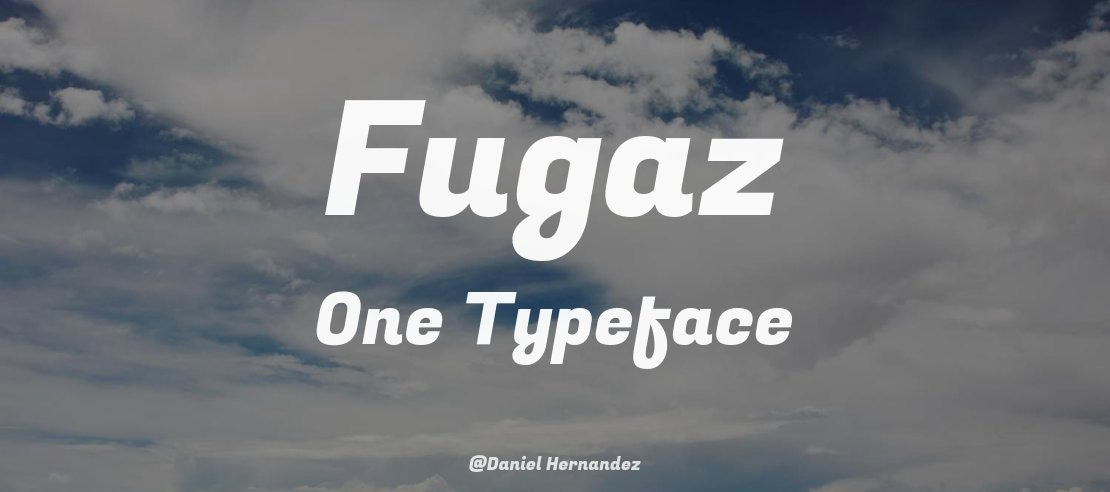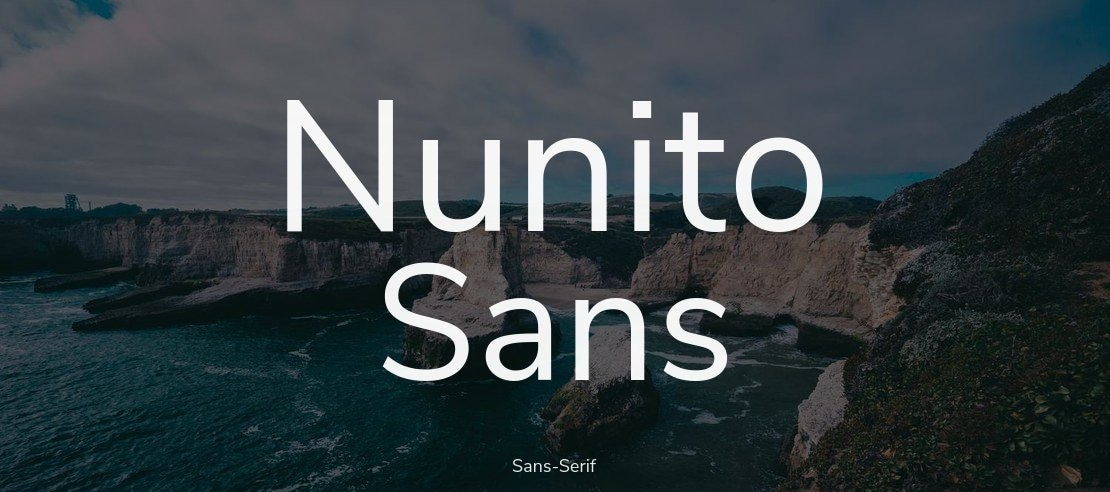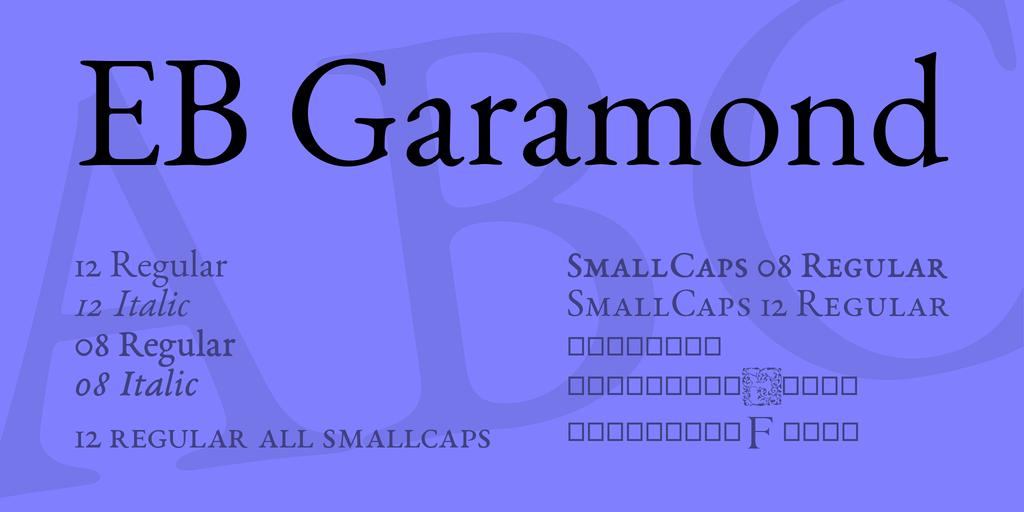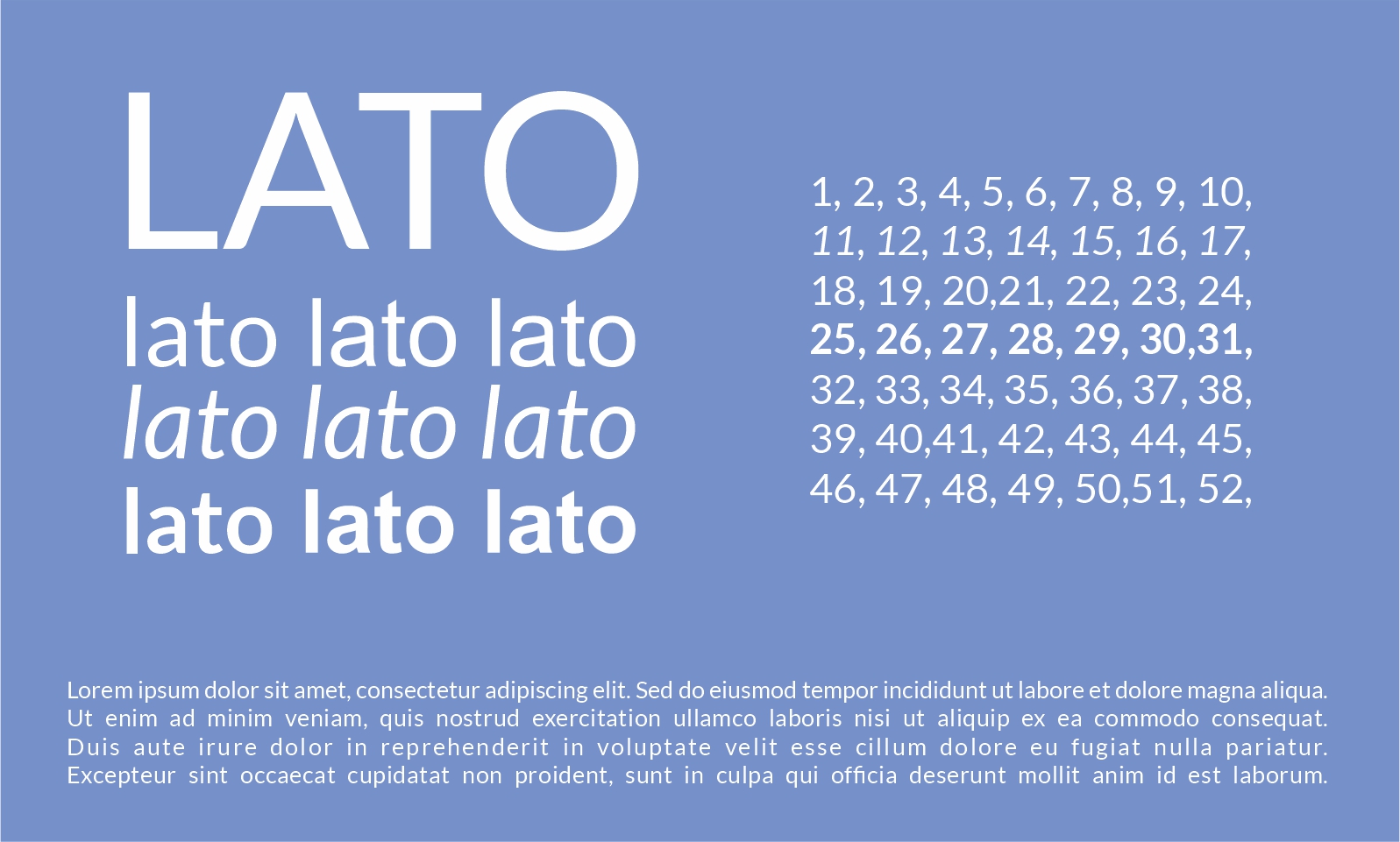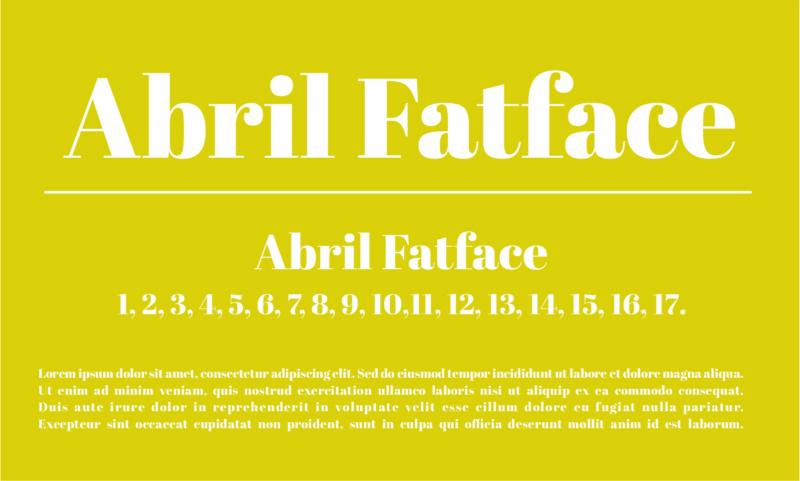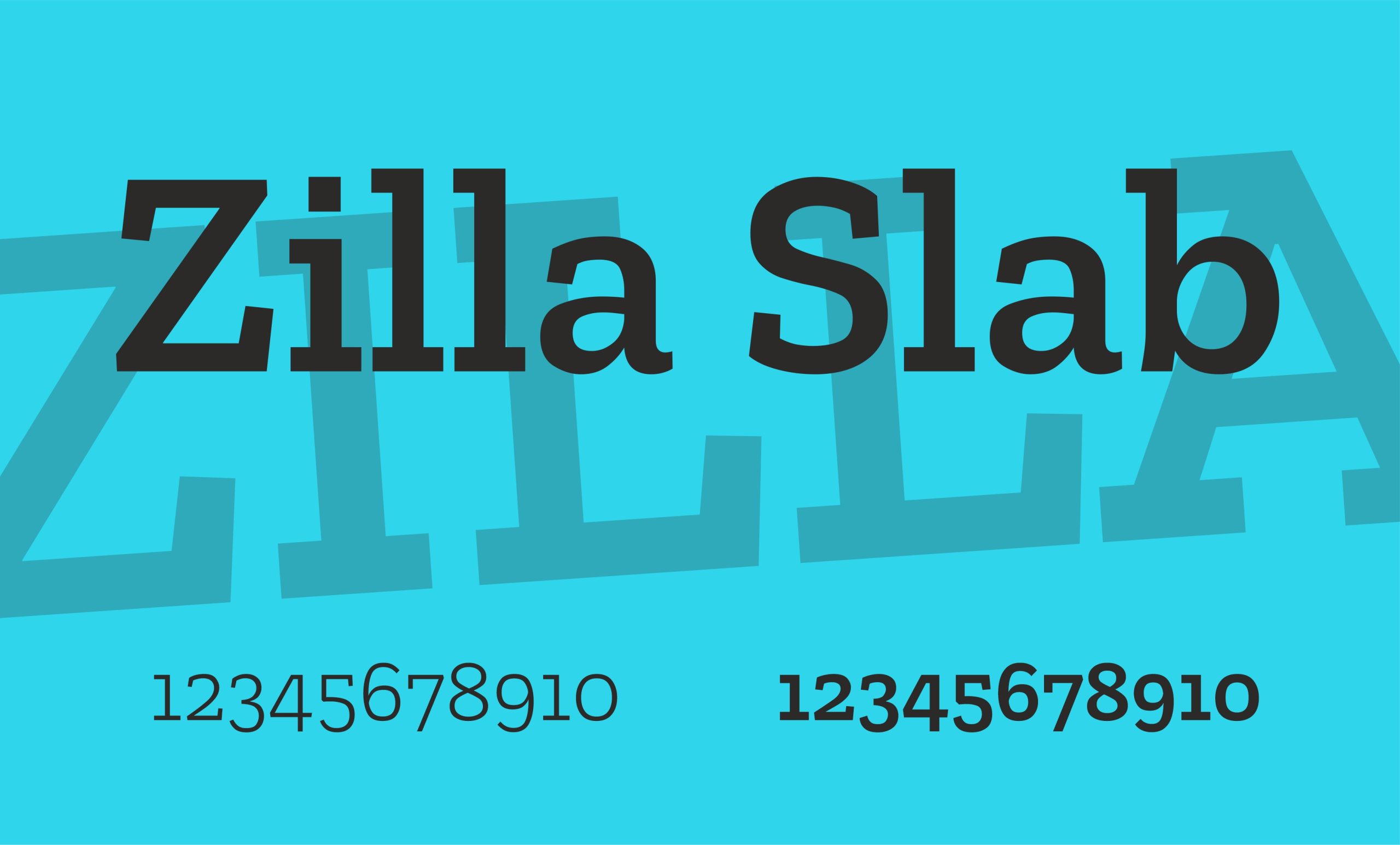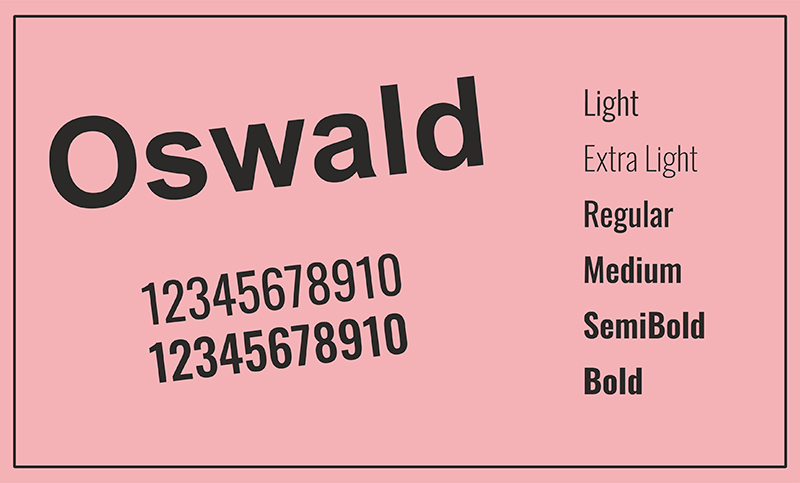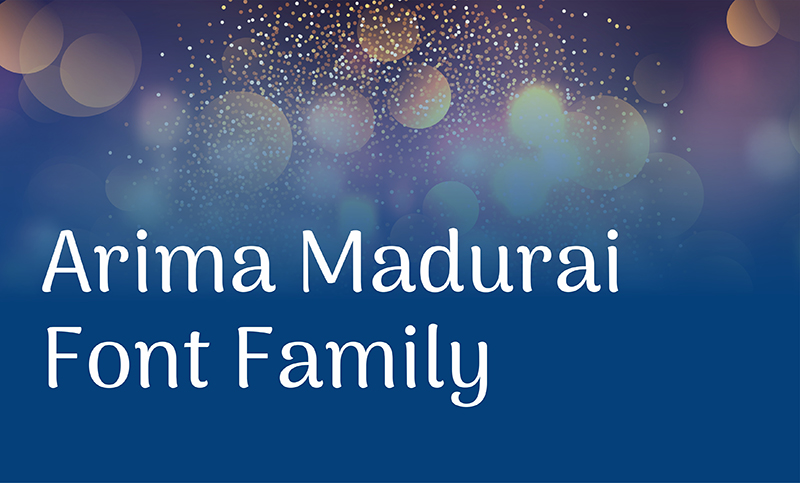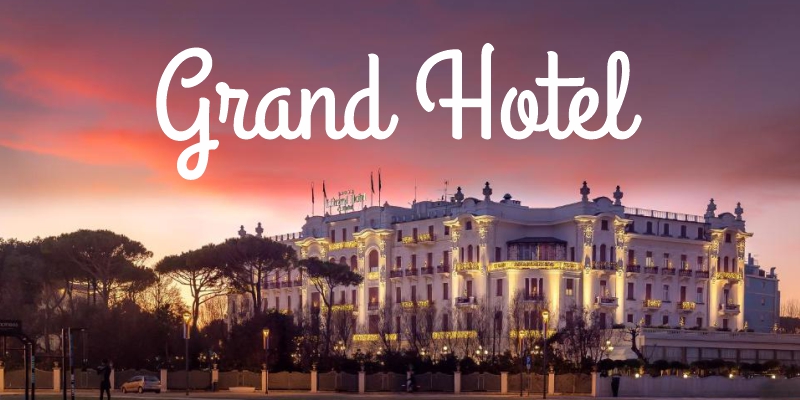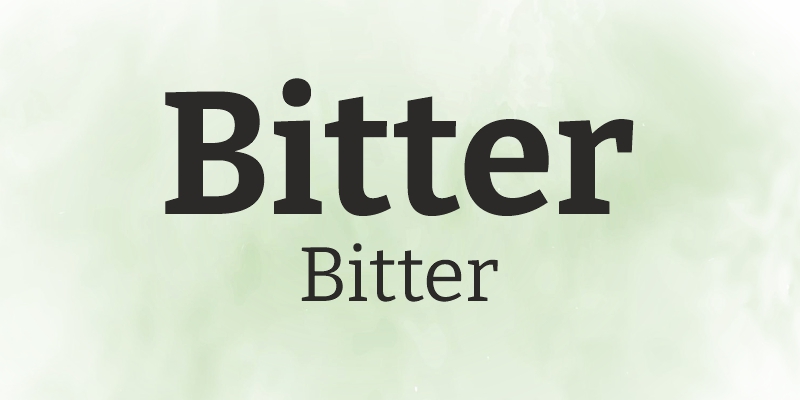
Typography plays a crucial role in UI design — it defines readability, hierarchy, and overall user experience. While most users never consciously notice it, designers know that choosing the right Figma fonts can make or break a project. Behind every polished interface lies hours of testing, tweaking, and comparing different typefaces until the perfect match is found.
Why Typography Matters in UI Design
Typography isn’t just about choosing a beautiful font — it’s about functionality, legibility, and emotion. The right font in Figma helps establish a clear visual hierarchy, guides users’ attention, and strengthens a brand’s identity. From mobile apps to web dashboards, well-selected typefaces ensure that the text is easy to read and aesthetically consistent.
For major platforms like Twitter, Facebook, or Instagram, typography plays a subtle yet vital role in maintaining a smooth user experience. The wrong font can easily disrupt the design flow or make an interface look unprofessional.
Best Fonts for UI Design in Figma
When designing interfaces, simplicity and clarity should always come first. Some of the best Figma fonts for UI projects include:
Inter – clean, modern, and optimized for digital screens
Roboto – versatile and widely used for mobile apps
Nunito Sans – friendly, rounded, and easy to read
Poppins – geometric and stylish for modern UIs
Open Sans – perfect balance between professionalism and readability
With the right typography, your UI design will not only look professional but also deliver an exceptional user experience.
1. Fugaz One Font
2. Nunito Sans Font Family
3. EB Garamond
4. Lato
5. Abril Fatface
6. Zilla Slab
7. Oswald
8. Arima Madurai Font Family
9. Grand Hotel
10. Bitter